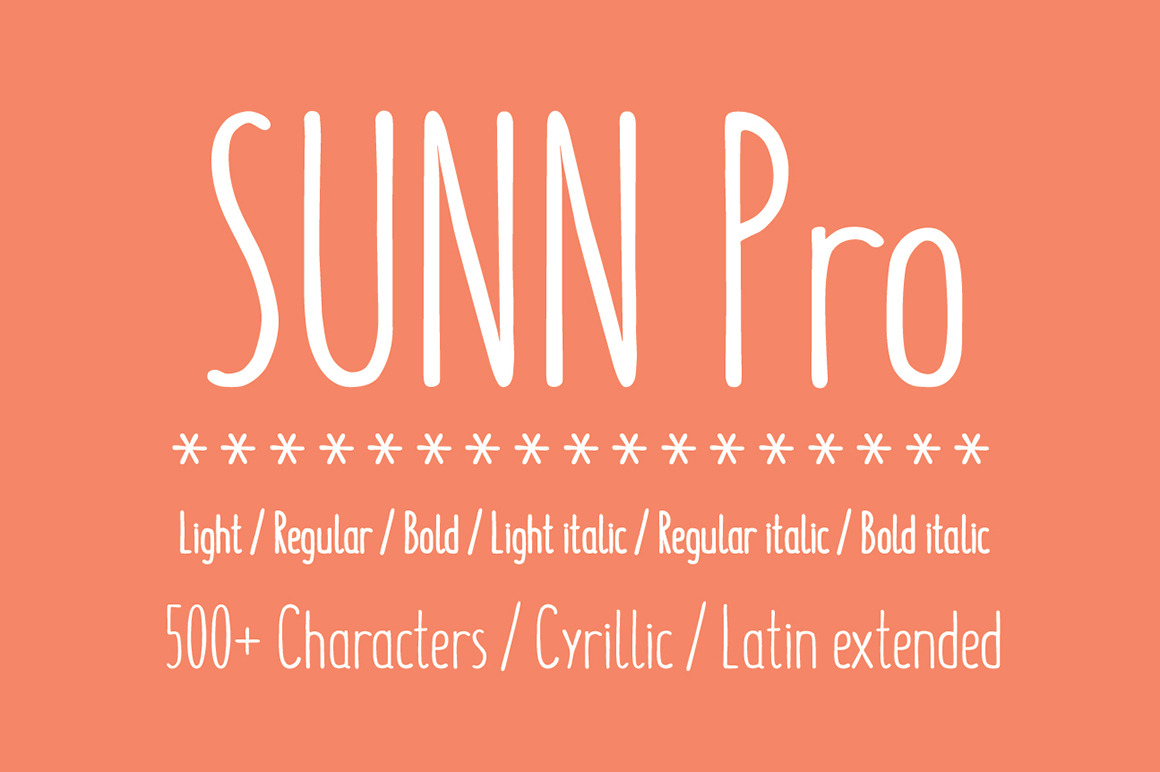
SUNN Pro - Handwriting Font
SUNN Pro is a Handwriting font, it goes in:
- Light
- Light Italic
- Regular Italic
- Bold
- Bold Italic
500 Characters, containing Cyrillic (Russian) and Latin extended